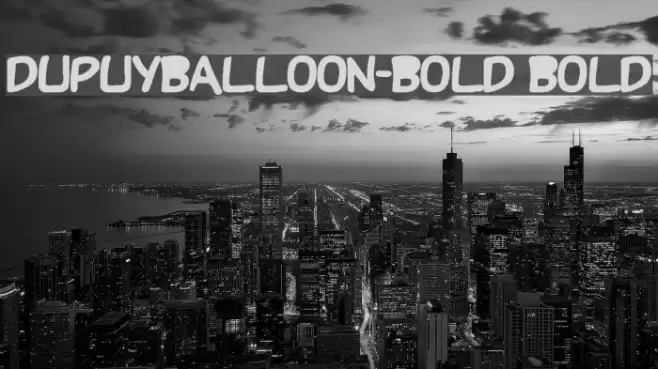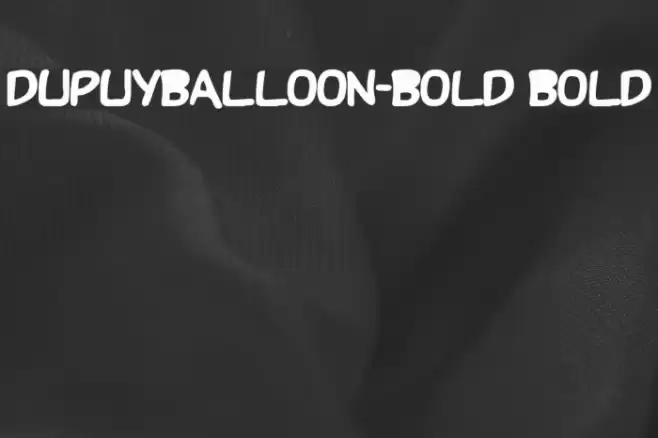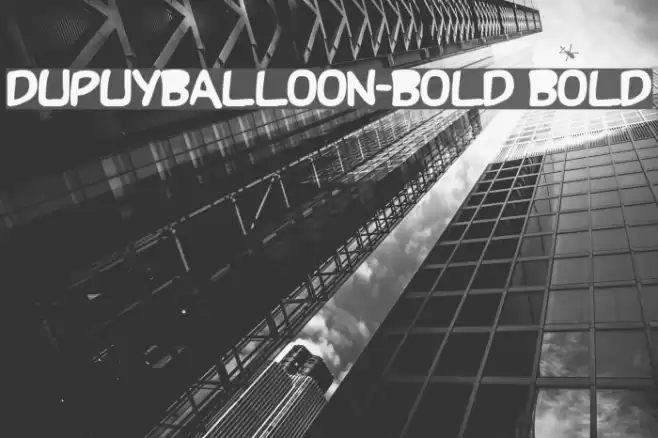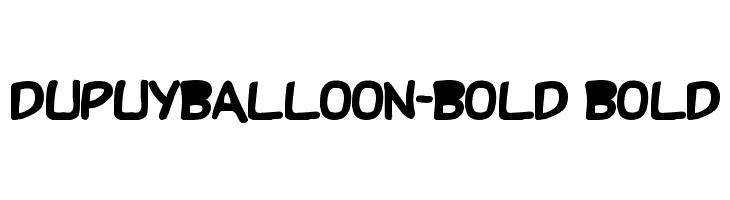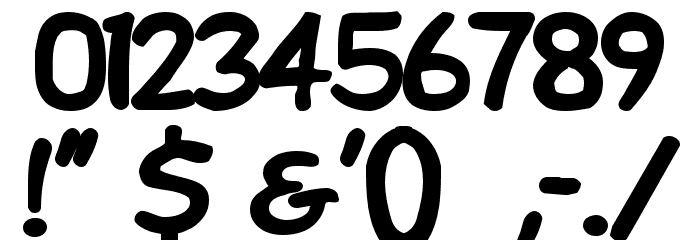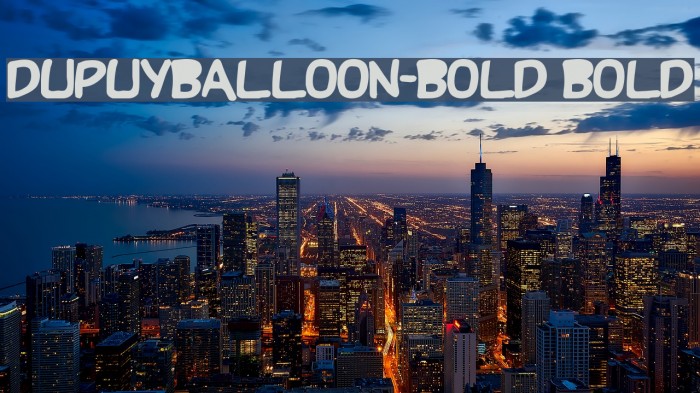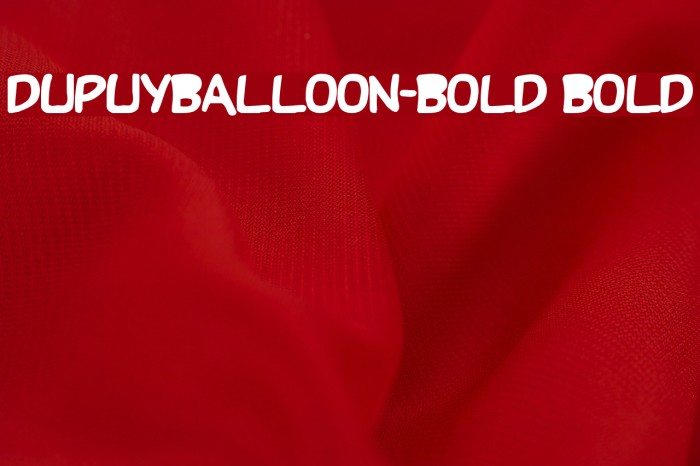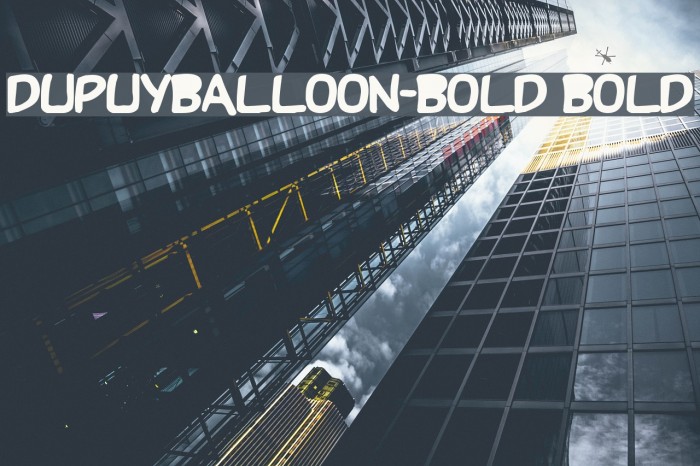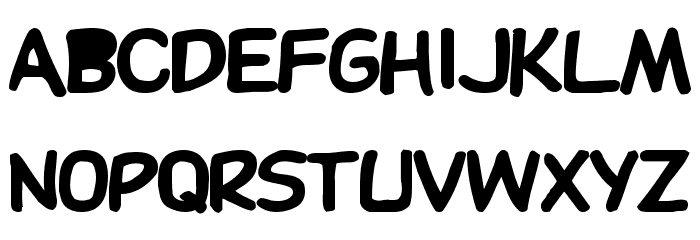
DupuyBALloon-Bold Bold Font
DupuyBALloon-Bold Bold Description
This playful and bold font features a bubbly, hand-drawn style that exudes a sense of fun and creativity. The characters are rounded and slightly irregular, giving them a whimsical and informal appearance. The uppercase and lowercase letters maintain a consistent weight, contributing to a cohesive look. The numbers and special characters follow the same playful design, making them suitable for a variety of creative applications. The font's boldness ensures high visibility and impact, making it ideal for eye-catching designs.
A bold, playful font with a hand-drawn, bubbly style.
- Proposed Projects: Ideal for children's books, playful branding, party invitations, and creative posters.
- Overall Style: Playful, Whimsical